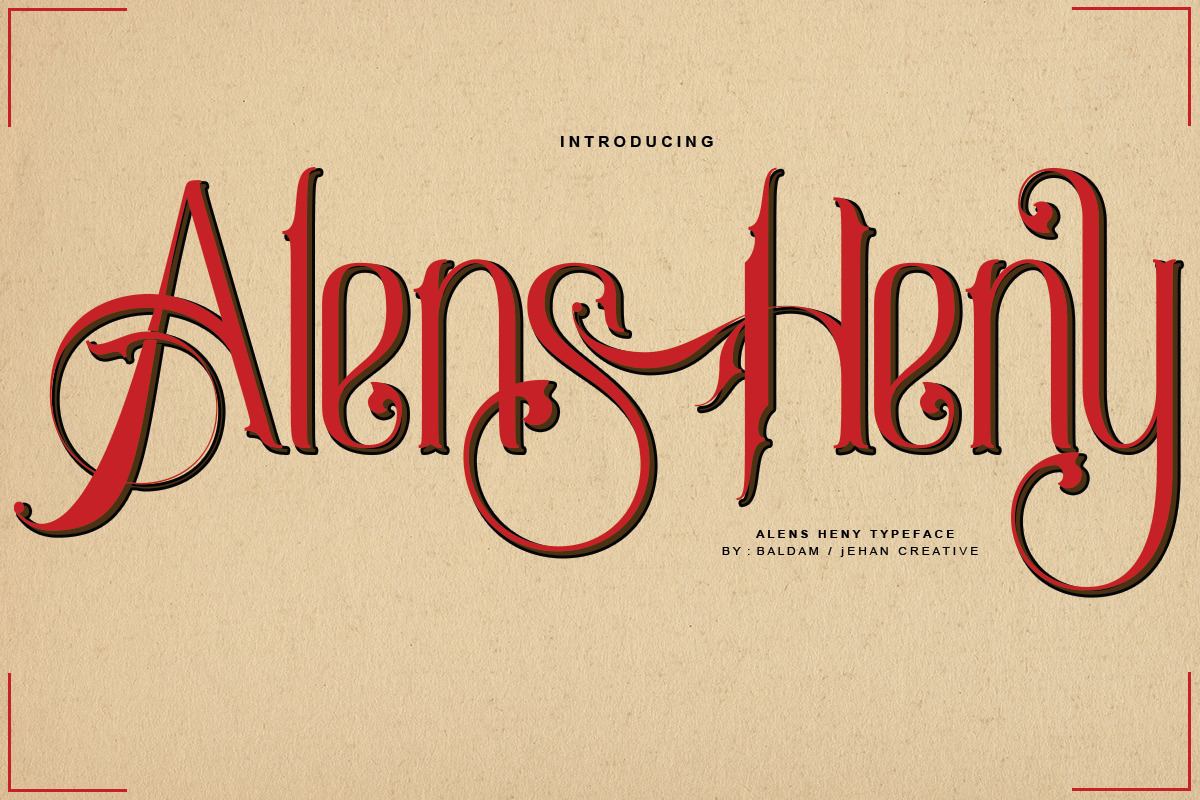
Alens Heny Font is ideal for creative agency branding, artistic portfolio design, contemporary poster layouts, modern magazine headers, innovative web design, experimental typography projects, cultural event promotions, and avant-garde marketing campaigns.
What makes Alens Heny Font so exciting is its bold artistic expression that pushes the boundaries of conventional typography through innovative letterform construction and creative design elements. This distinctive display typeface features unique character shapes with experimental details that create an unmistakably artistic and contemporary aesthetic. The font's creative boldness and unconventional approach make it perfect for brands and projects that need to communicate originality, artistic vision, and creative innovation.
The Alens Heny Font family includes regular and bold variations, along with alternative characters and stylistic elements that provide designers with extensive creative possibilities for developing unique typographic expressions and artistic layouts.
Alens Heny Font Free Download presents designers with access to premium artistic typography that perfectly captures the essence of creative rebellion and design innovation. This distinctive typeface excels in applications where artistic expression and creative differentiation are central brand messages, making it ideal for art galleries, design studios, creative collectives, and cultural organizations. The font's artistic character makes it particularly effective for entertainment industry projects, fashion brands, and creative services requiring bold visual statements.
The imaginatively crafted letterforms of Alens Heny Font maintain functional readability while delivering maximum artistic impact across various applications. Each character demonstrates creative innovation and design experimentation, creating text that commands attention and sparks visual interest. This artistic approach makes the font valuable for projects where conventional typography would fail to capture the desired creative energy and artistic authenticity.
For creative brand communication, Alens Heny Font provides the perfect solution for organizations wanting to establish artistic credibility through typography that reflects genuine creative vision. The font's experimental character allows it to communicate innovation and artistic leadership while appealing to audiences who appreciate bold design choices and creative authenticity across all media formats where artistic typography enhances brand storytelling.